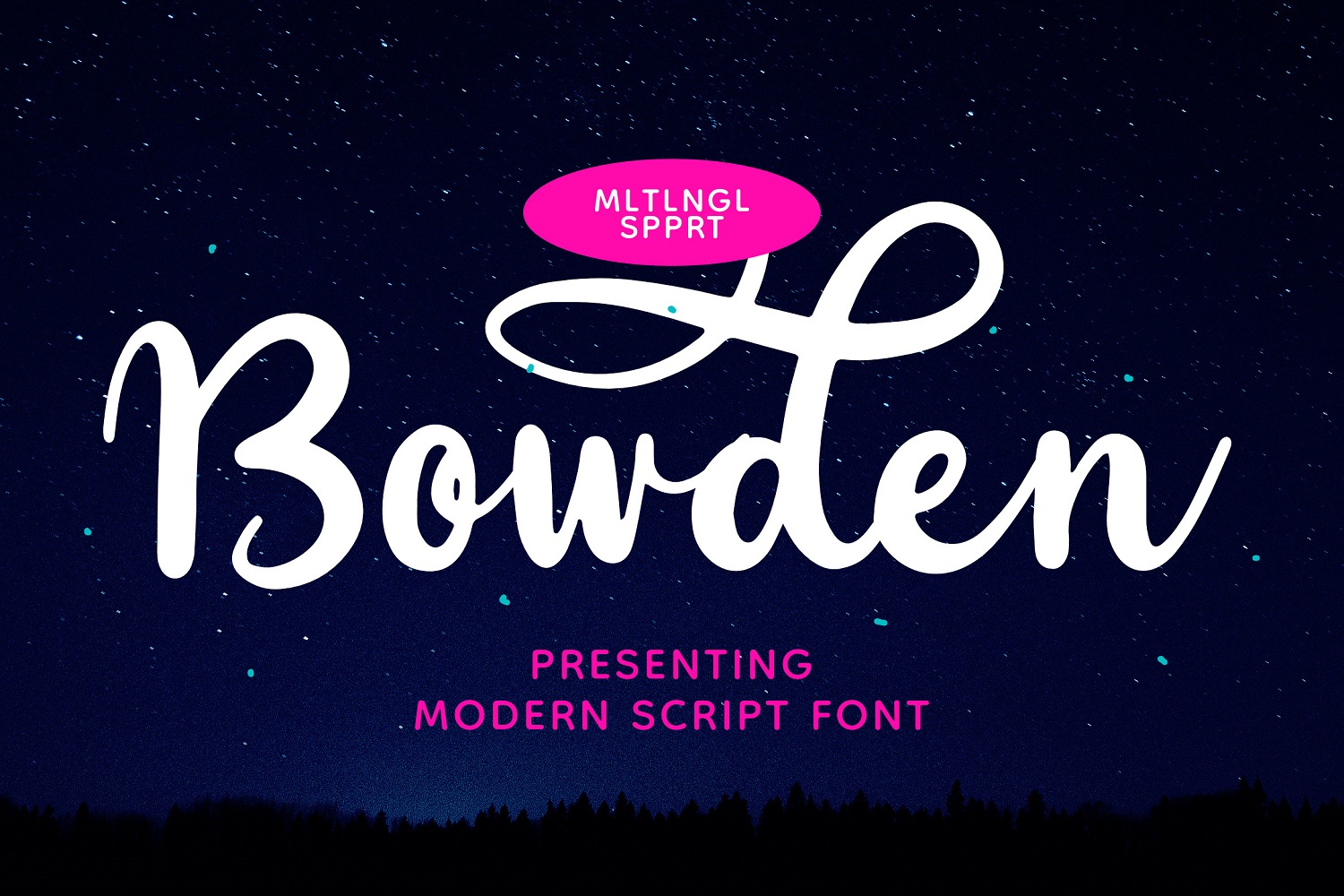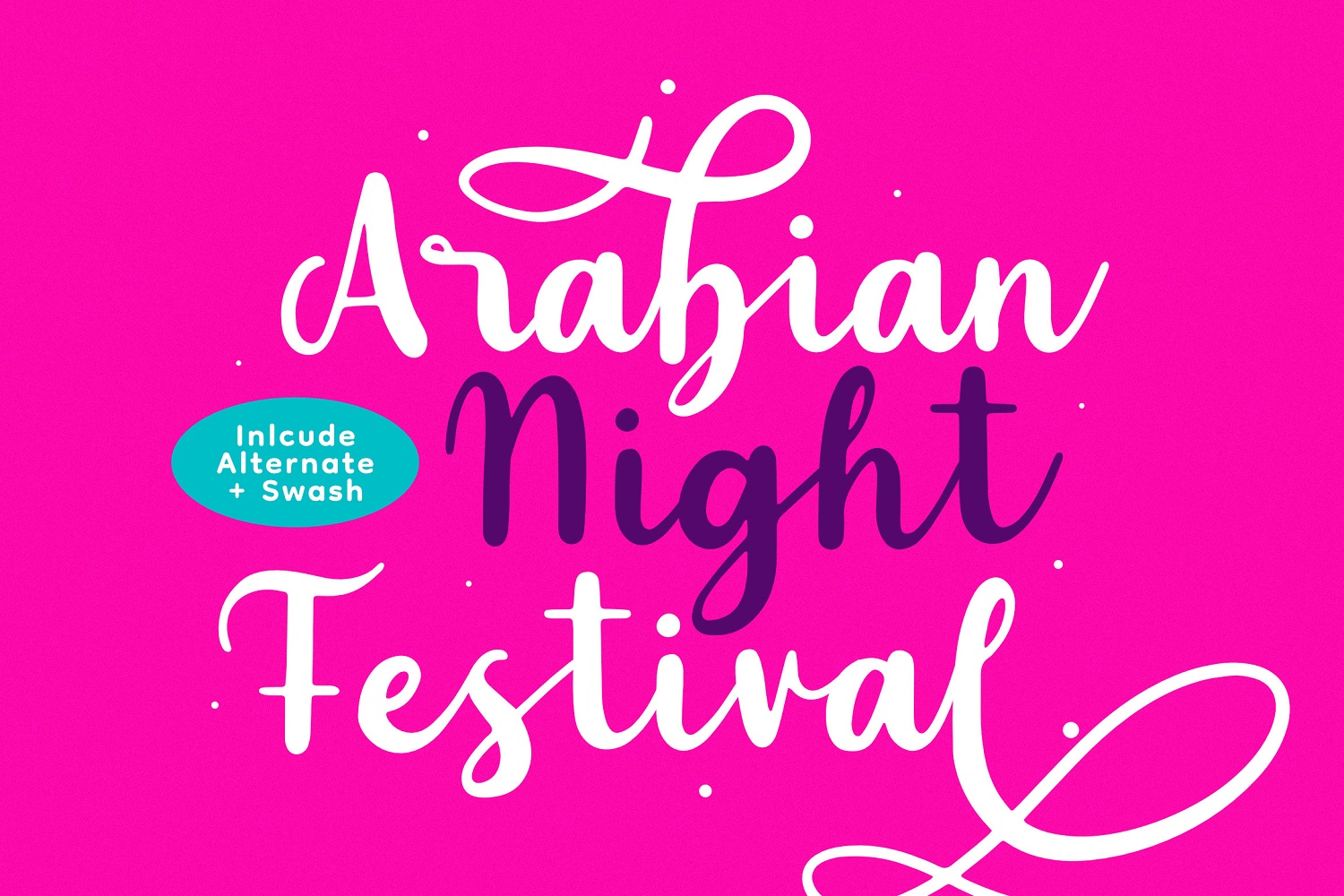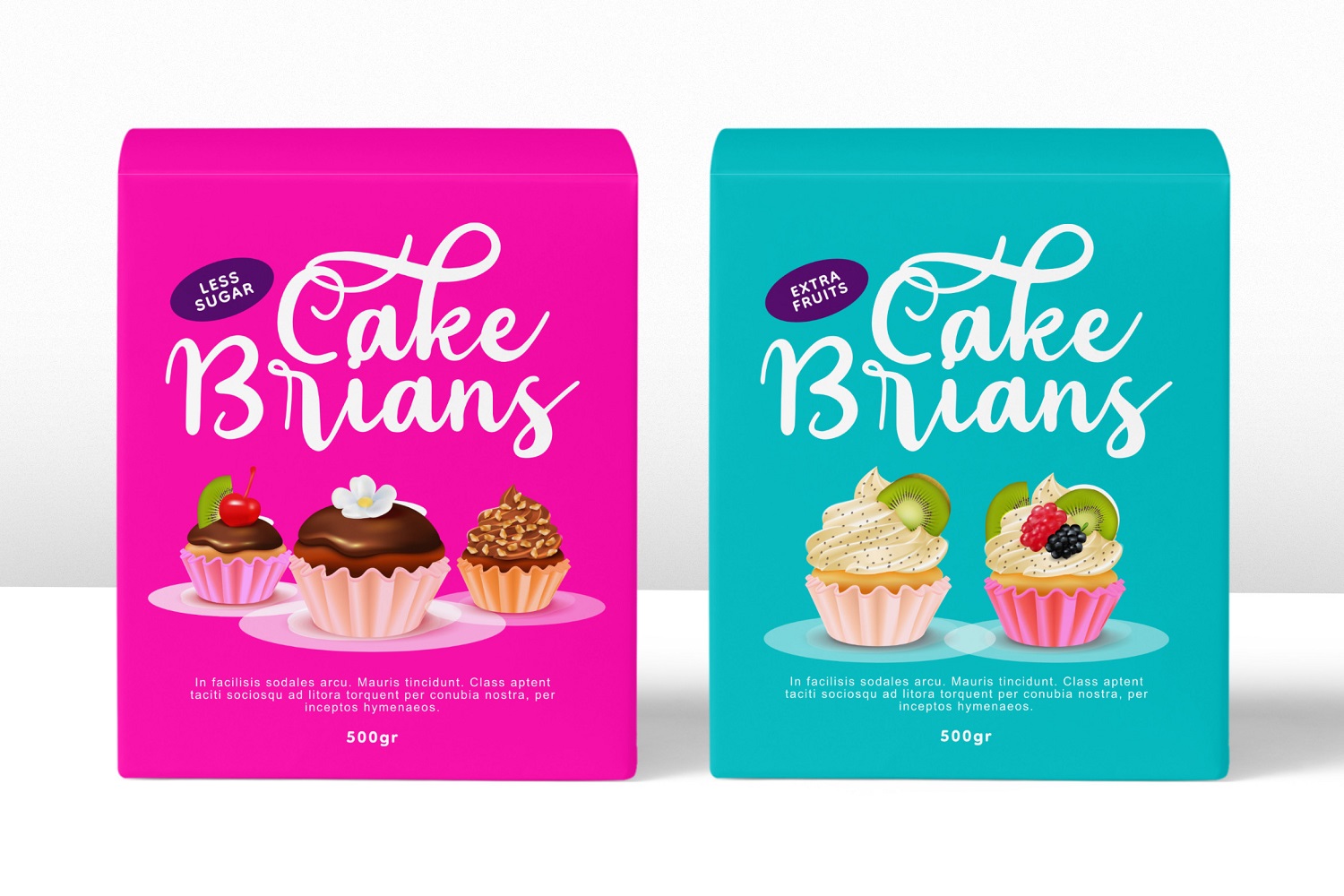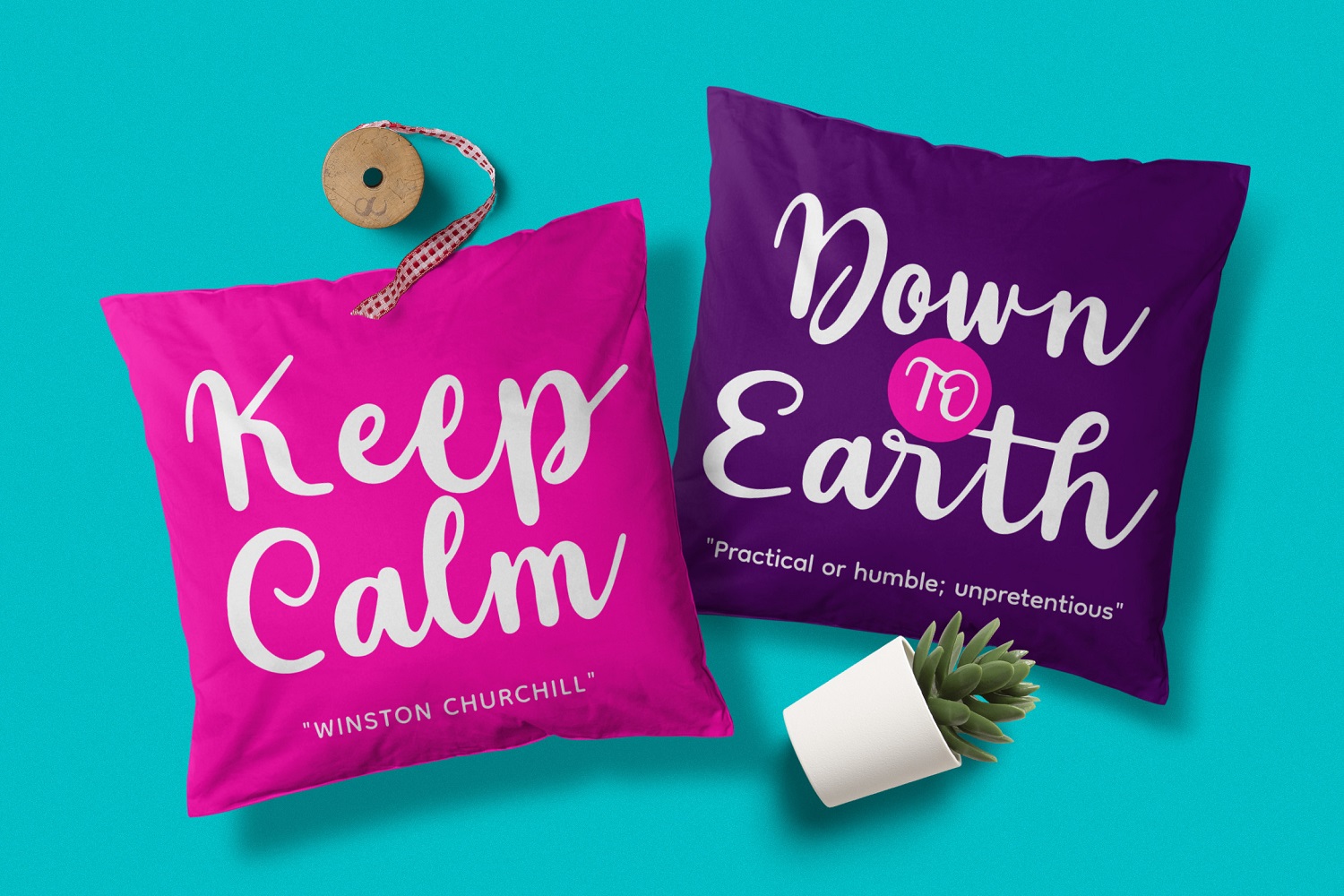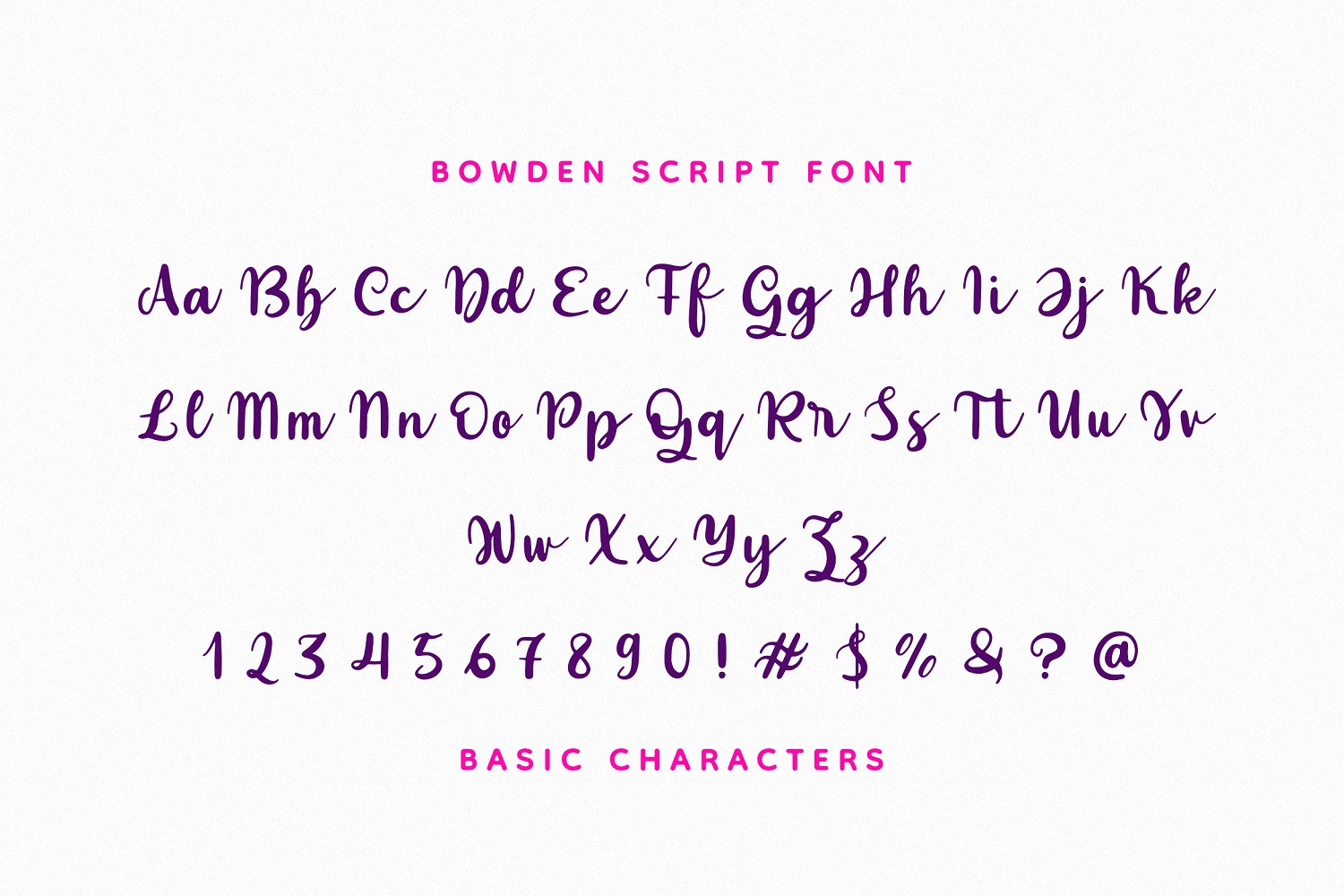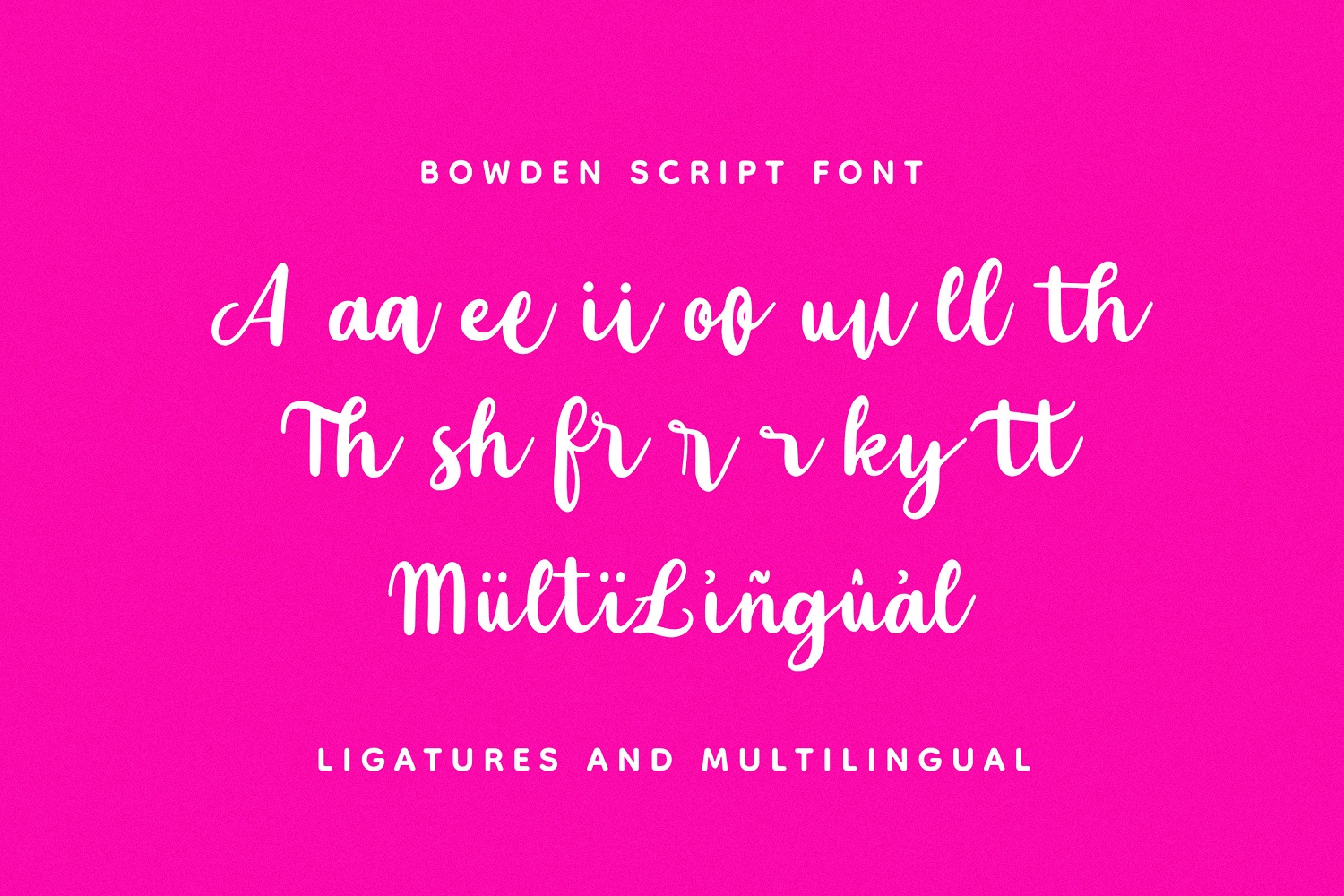
Bowden
Glyphs for Bowden
Bowden is a modern script font that radiates warmth and charm through its fluid curves and handwritten flair. With its playful letterforms, swashes, and alternates, Bowden is the perfect choice for designs that require a touch of personality. Whether it’s product packaging, greeting cards, social media quotes, or stylish branding projects.
This script font also includes multilingual support and a variety of ligatures, making it versatile across languages and platforms. Its smooth, rounded strokes and clean readability ensure Bowden stands out in both digital and print applications. Let your words flow effortlessly with Bowden’s expressive and friendly style.